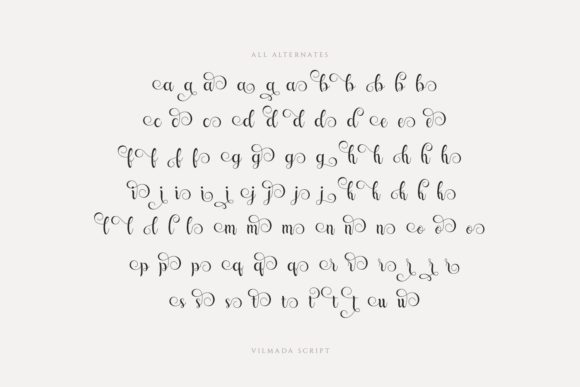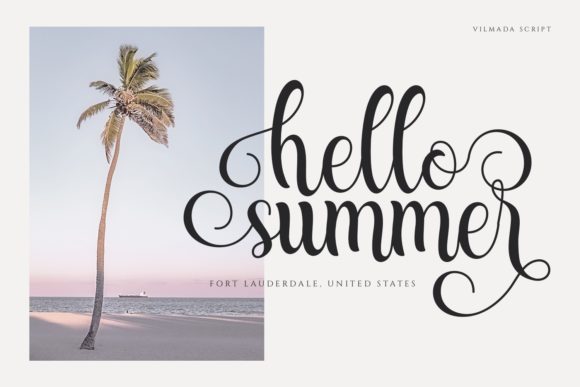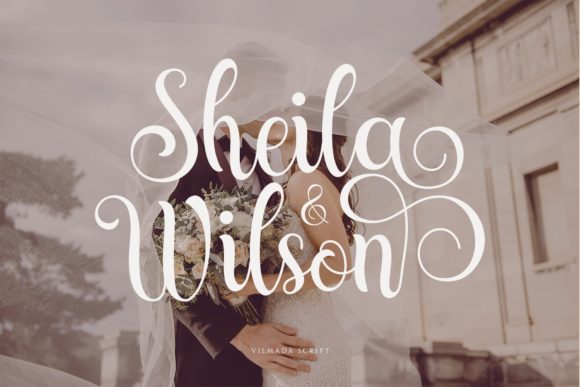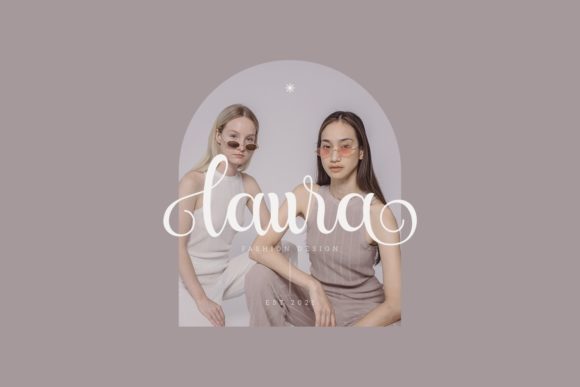
About Vilmada Font
Vilmada is a superb handwritten font designed to make your work stand out with its elegant and curvy lines. This versatile font is PUA encoded, providing easy access to all glyphs and swashes for seamless customization.
The elegant and curvy lines of Vilmada contribute to a stylish and sophisticated design. Whether used in branding projects, product packaging, magazine covers, social media, or weddings, the font adds a touch of uniqueness and refinement to your creations.
For branding projects, Vilmada’s superb handwritten style can be utilized to create logos, headlines, or other elements that convey a sense of modernity and sophistication. The font’s elegant lines and swashes offer creative flexibility, allowing you to customize your designs with ease.
In product packaging, Vilmada’s stylish strokes enhance the overall aesthetic, creating a distinctive and memorable look that captures attention. The font’s versatility makes it suitable for various packaging designs, adding a touch of elegance to the visual identity.
For wedding-related designs or any project that requires a superb and handwritten touch, Vilmada can be applied to invitations, stationery, or other elements, adding a sophisticated and personalized feel.
Whether expressing words against a background or creating a stylish and eye-catching look for various projects, Vilmada’s superb handwritten font offers a versatile and elegant option. The PUA encoding ensures that you can explore and utilize all the glyphs and swashes effortlessly, enhancing your creative freedom.
In summary, Vilmada is more than just a font; it’s a superb handwritten design tool that enhances the visual appeal of your projects. Whether applied to branding, packaging, social media, weddings, or other design contexts, Vilmada brings an elegant and distinctive touch to your typography.